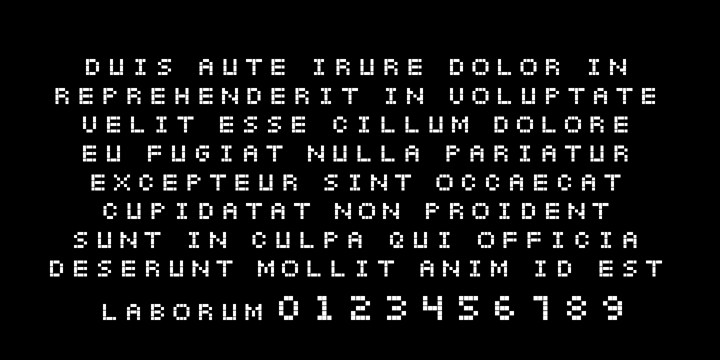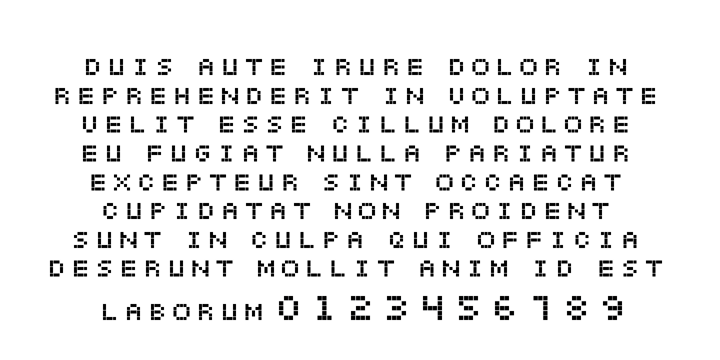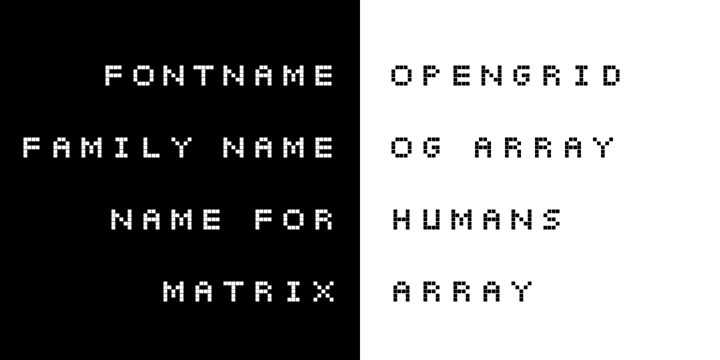
My design philosophy centers on constraint-based creativity. I believe limitations don't restrict design - they refine it. By working within strict geometric grids and modular systems, I create typefaces that are both disciplined and expressive. This approach mirrors my technical background, where elegant solutions emerge from understanding underlying structures.
OpenGrid represents this philosophy in action. Born from experiments with negative space and rectangular modules, it explores how minimal geometric components can generate visually striking letterforms. The project started as sketches on graph paper during networking lectures, evolving into a full typeface family that balances Bauhaus-inspired rigor with contemporary digital aesthetics.